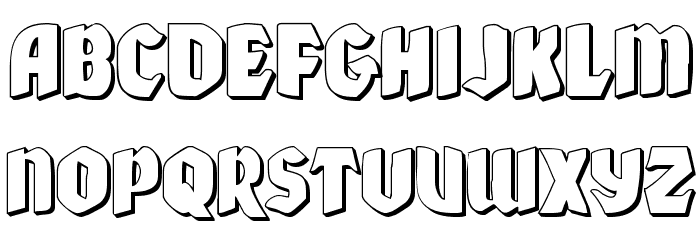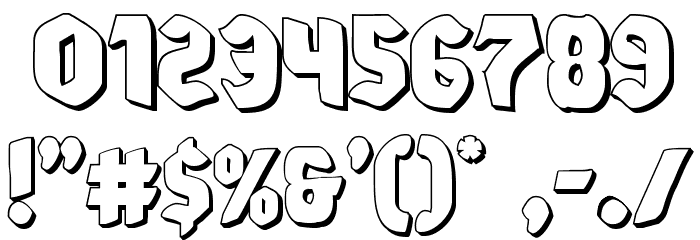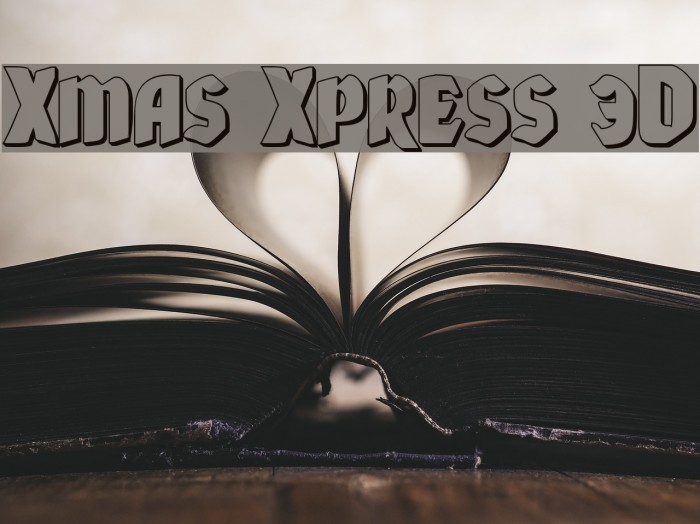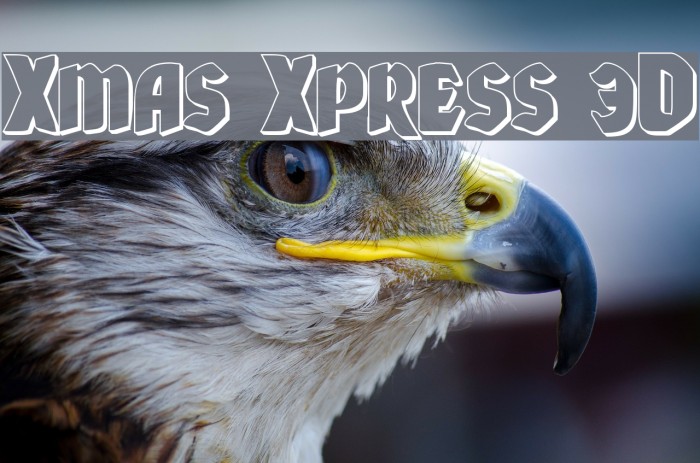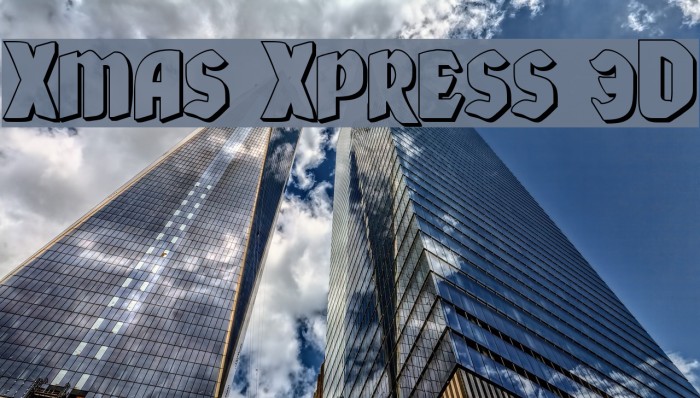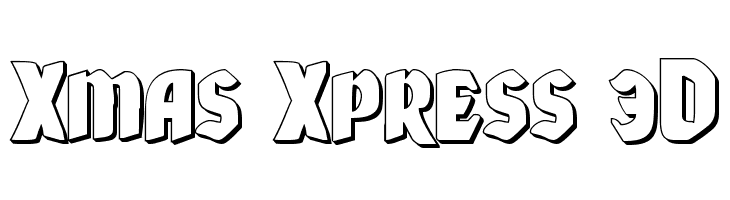
Xmas Xpress 3D Font
This font features a bold, three-dimensional design that gives each character a striking, shadowed appearance. The letters are uppercase and have a playful, festive style, reminiscent of holiday themes. The characters are outlined with a thick black border, enhancing their 3D effect. The font's design is both decorative and eye-catching, making it ideal for projects that require a fun and engaging look. The numbers and special characters follow the same design principles, ensuring consistency across all elements.
A bold, 3D decorative font with a festive, playful style.
- Proposed Projects: Ideal for holiday-themed designs, greeting cards, festive banners, and playful branding projects.